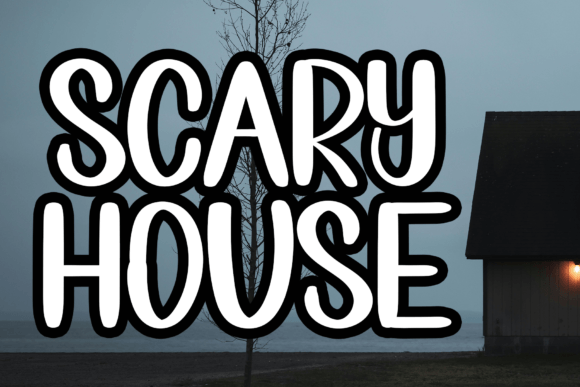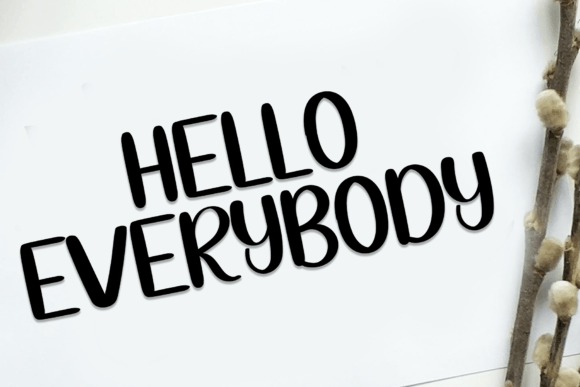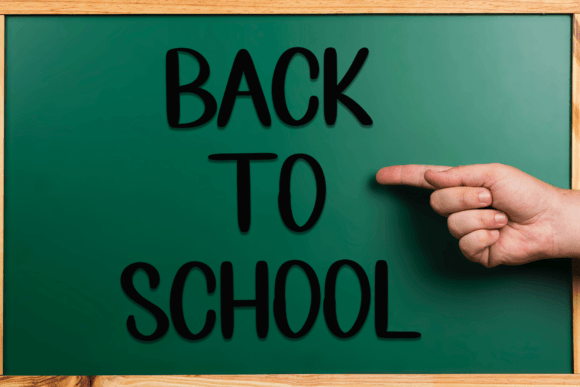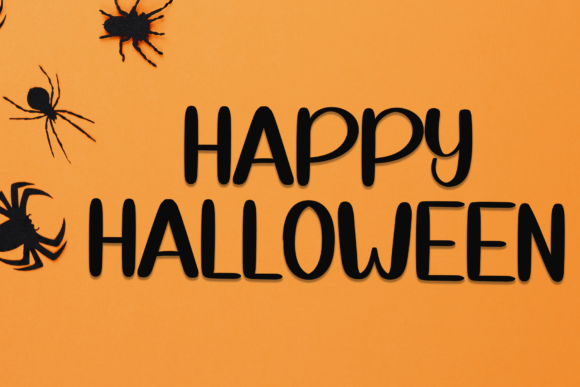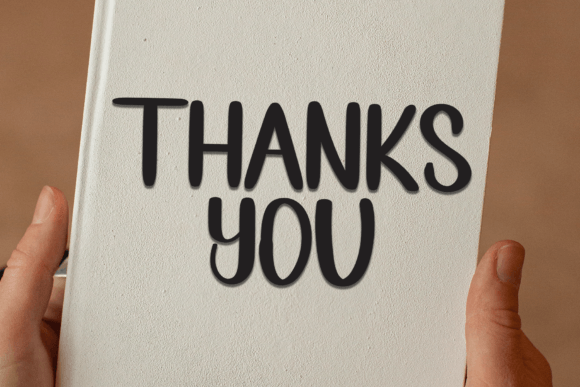
The Magic of Haunted Friday Font: Elevating Your Holiday Designs
As the snowflakes start to fall and the holiday lights twinkle, I find myself wandering through a winter wonderland of design ideas. There’s something special about capturing the essence of the season in a single, beautifully crafted font. For me, that font is Haunted Friday – a festive and merry typeface that embodies the spirit of the holiday season.
With its whimsical flair and decorative elements, Haunted Friday Font is the perfect addition to any holiday-themed project. Whether you’re creating greeting cards, gift tags, or festive social media posts, this enchanting font adds a touch of nostalgia and cheer to your words. As a designer, you’ll appreciate the PUA encoded glyphs and ligatures that make it easy to access all the amazing features of Haunted Friday Font.
Key Features of Haunted Friday Font
- Font Family: A unique, hand-drawn sans-serif font designed to evoke a spooky and mysterious atmosphere.
- Unique Characteristics: The font features a distinctive, hand-drawn feel with irregular letterforms and subtle texture, adding to its eerie and haunted atmosphere.
Haunted Friday Font Review
At first glance, the Haunted Friday Font seems like the perfect choice for any spooky-themed design project. And, to be honest, it does have some great qualities that make it a decent option.
- ✨ Unique and spooky vibe: The font does have a distinct, eerie feel that’s perfect for Halloween or horror-themed designs.
- ✨ Customizable: The font offers a range of weights, making it suitable for various design elements, from bold titles to subtle text.
- ✨ Creative possibilities: The irregular shapes and unique letterforms provide endless opportunities for creative experimentation and manipulation.
However, as with any font, there are some limitations to consider:
- ⚠️ Limited legibility: The font’s unique design may make it challenging to read, especially at smaller sizes or in certain contexts.
- ⚠️ Limited versatility: While the font works well for spooky themes, it may not be the best choice for more general or corporate designs.
Overall, I think the Haunted Friday Font is a solid choice for designers who want to add a touch of eeriness to their projects. While it may not be the most versatile font, it’s definitely a unique and creative option that can add some serious flair to your designs.
Haunted Friday Font is ideal for creating spooky and mysterious designs, such as:
Haunted house invitations
Spooky social media graphics
Creepy Halloween decorations
To get the most out of Haunted Friday Font, experiment with different font sizes, colors, and combinations to create unique and eerie effects.